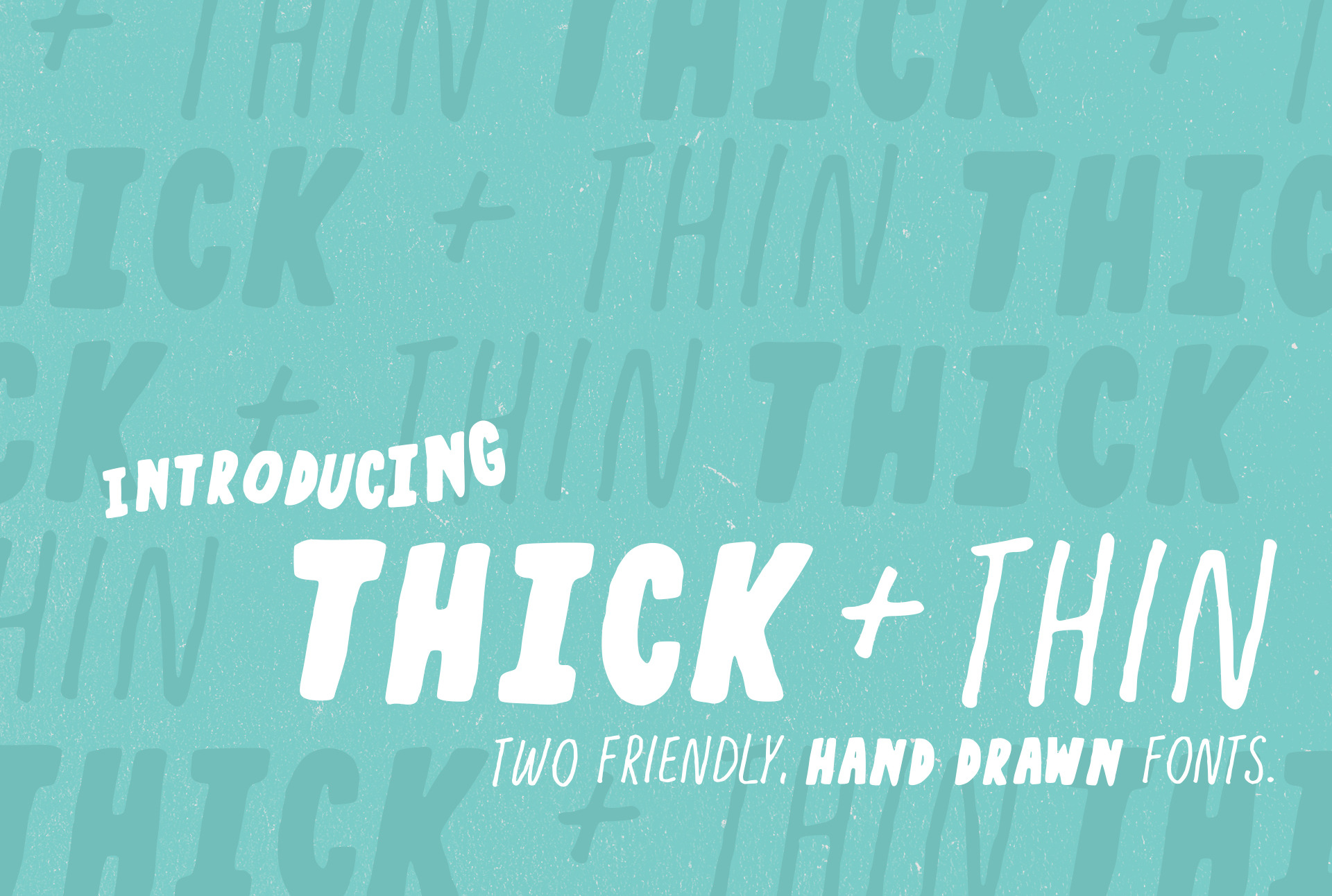
Thick + Thin Font
Say hi 👋 to two handy, hand drawn fonts that are sure to help through thick + thin.
These friendly, imperfect characters compliment each other, because they're nice like that.
Thick + Thin are two uppercase, slightly slanted fonts that work together (or separate) to make your posters, greeting cards, book covers, and blog or video graphics look more amazing!